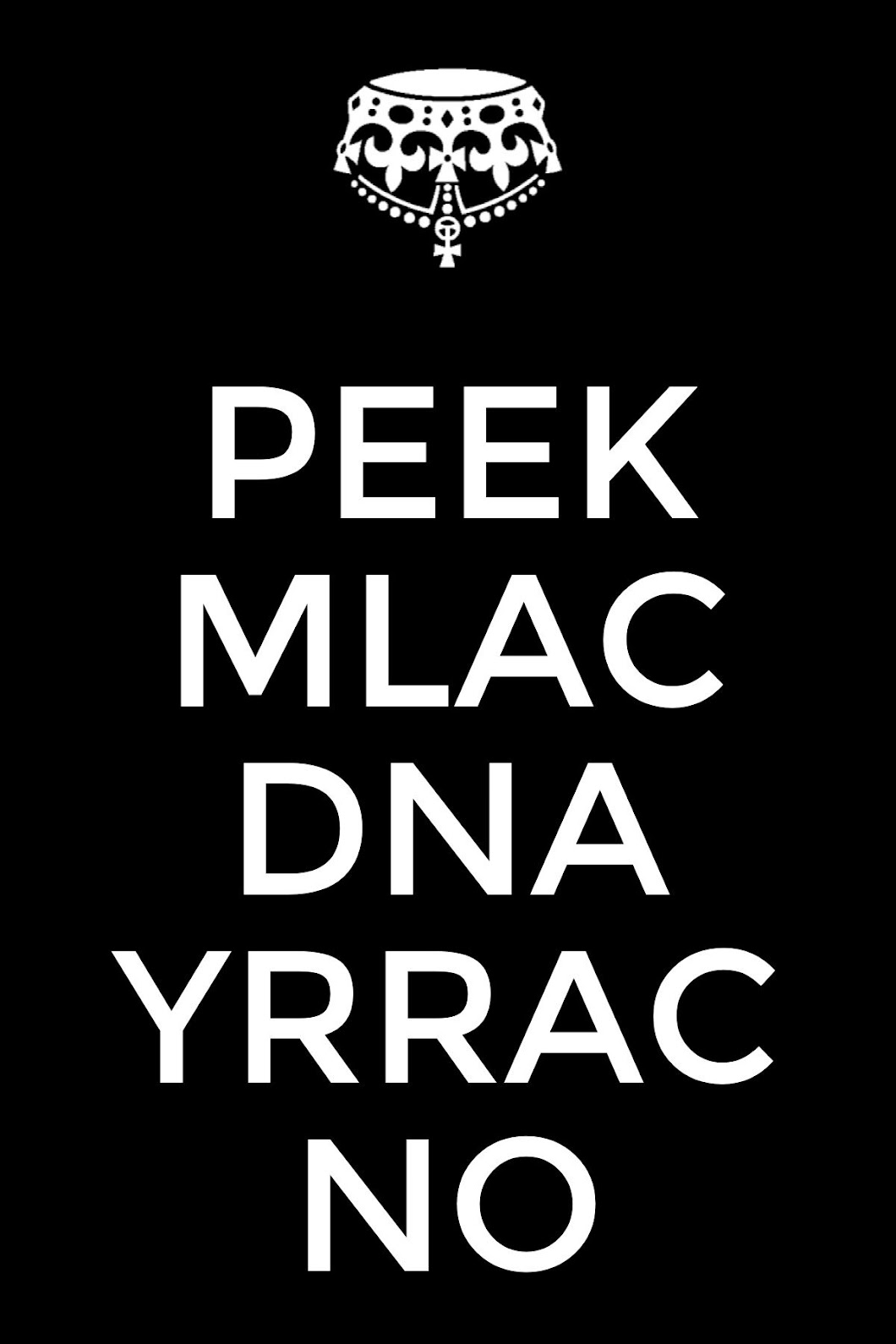
Keep calm heavy is a high quality font based on the twelve available uppercase letters of the 'keep calm and carry on' poster, and on similar lettering from the other two posters in the original series. The font is licensed as free for personal use.
And the keep calm font has created the slogan keep calm and carry on which greatly contributed to the victory of world war ii in 1945.
Keep calm and carry on text font. Font “keep calm” and carry on keep calm is a family of fonts developed from the now famous world war 2 poster that was designed in 1939 but never issued, then rediscovered in 2000. Keep calm and carry on keep calm is a family of fonts developed from the now famous world war 2 poster that was designed in 1939 but never issued, then rediscovered in 2000. Version keep calm [version 1.01] by keith bates © 2011 www.k.
Alternatively you could use the keep calm and type on font from www.keepcalmstudio.com. Keep calm is a high quality font based on the twelve available uppercase letters of the 'keep calm and carry on' poster, and on similar lettering from the other two posters in the original series. Keep calm is a family of fonts developed from the now famous world war 2 poster that was designed in 1939 but never issued, then rediscovered in 2000.
A font based on the keep calm and carry on logo. Keep calm w01 book font info. Keep calm is a family of fonts developed from the now famous world war 2 poster that was designed in 1939 but never issued, then rediscovered in 2000.
The keep calm and carry on poster was little known until it was discovered in 2000 at a bookshop in alnwick. It has both the crown and the upside down crown included. Remember, you are in control and it doesn’t even need to say keep calm or include the famous keep calm crown icon or keep calm font.
Keep calm and carry on was a motivational poster produced by the government of the united kingdom in 1939 during the beginning of the world war ii to raise the morale of the british public. Keep calm book is a high quality font based on the twelve available uppercase letters of the 'keep calm and carry on' poster, and on similar lettering from the other two posters in the original series. The default values have been chosen to match the original 'keep calm' poster as closely as possible.
Download keep calm font · free for personal use · keep calm is a family of fonts developed from the now famous world war 2 poster that was designed in 1939 but never issued, then rediscovered in 2000. For one reason or another, these posters were hardly displayed during the war years. The poster features an icon of crown with the text “keep calm and carry on” portrayed in white on a red background.
The keep calm poster generator below allows you to generate a keep calm poster with your own message. Keep calm is a family of fonts developed from the now famous world war 2 poster that was designed in 1939 but never issued, then rediscovered in 2000. Keep calm is a family of fonts developed from the now famous world war 2 poster that was designed in 1939 but never issued, then rediscovered in 2000.
Keep calm is a family of fonts developed from the now famous world war 2 poster that was designed in 1939 but never issued, then rediscovered in 2000. Keep calm is a family of fonts developed from the now famous world war 2 poster that was designed in 1939 but never issued, then rediscovered in 2000. Although this design uses the keep calm font and crown icon, you can choose from hundreds of icons, colours and backgrounds and make your keep calm and change the logo design as personal as you are.